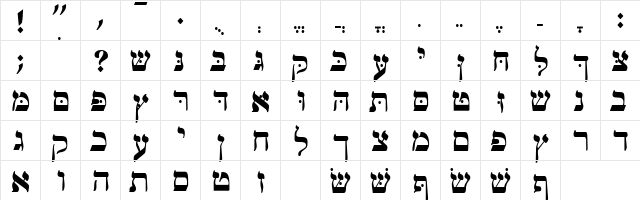
MendelSiddurMW Bold
Design Context for MendelSiddurMW Typeface
MendelSiddurMW is a composed and adaptable typeface that performs quietly and consistently across a wide range of design contexts. The heavy weight commands attention and anchors typographic hierarchies.